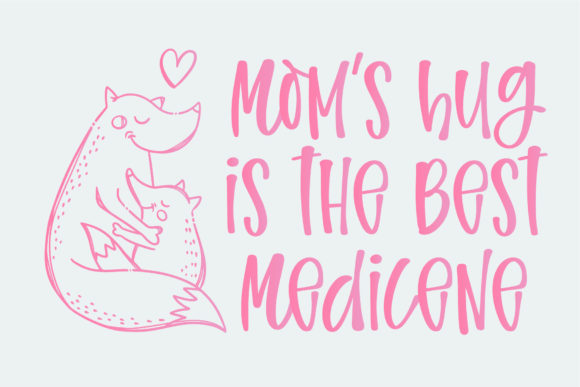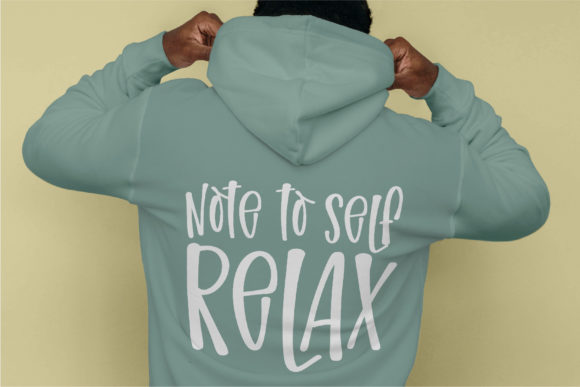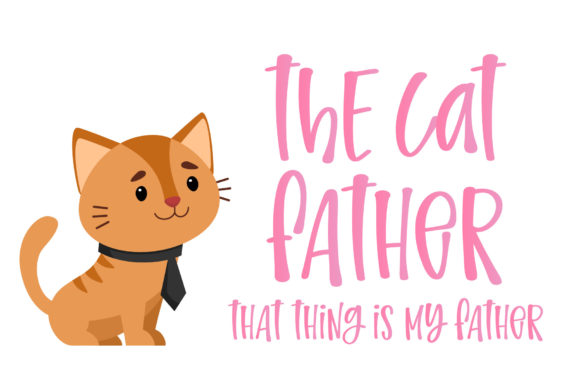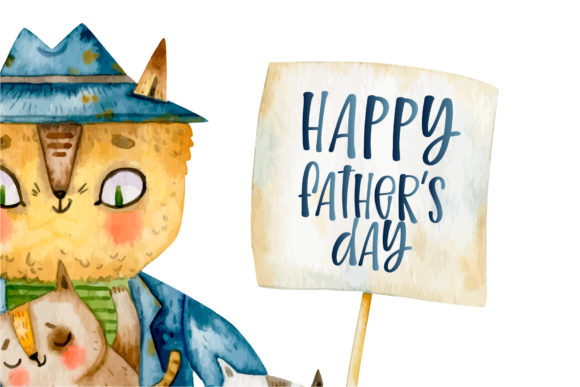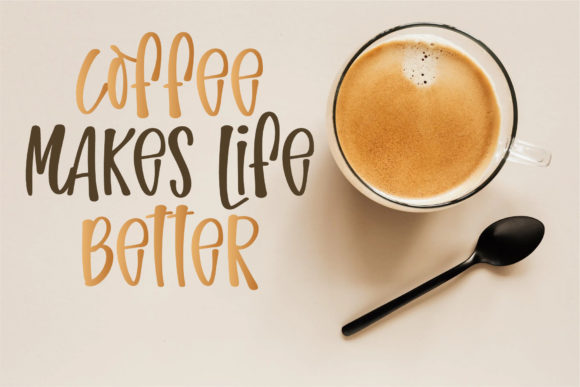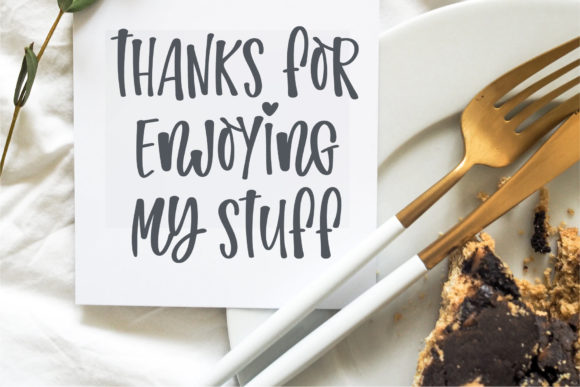
The Power of Gratitude Font: Elevate Your Designs with a Personal Touch
I’ll never forget the time I was working on a project for a client’s chalkboard quote. I had the perfect design concept, but something was missing – the right font. I scrolled through page after page of Google Fonts, but nothing seemed quite right. That was until I stumbled upon Gratitude Font. Its authentic, handwritten look and feel instantly added a personal touch to my design, and I knew I had found the perfect fit.
As a designer, I’m always on the lookout for fonts that can help me create unique and engaging designs. Gratitude Font has quickly become one of my go-tos, and here’s why:
- ✨ Authentic look and feel: Gratitude Font has a genuine, handwritten quality that adds a personal touch to any design.
- ✅ Versatility: This font is perfect for a wide range of projects, from chalkboard quotes to teaching materials, and even social media graphics.
- 💬 Easy to read: Despite its informal, handwritten style, Gratitude Font is surprisingly easy to read, even at smaller sizes.
Of course, no font is perfect, and Gratitude Font has a few quirks to be aware of:
- 🤔 Limited formal use: While Gratitude Font is amazing for informal designs, it may not be the best choice for more formal projects or professional documents.
- ⚠️ Occasional kerning issues: As with any font, there may be some kerning issues, especially with certain letter combinations.
The Story Behind Gratitude Font
Gratitude Font was designed with the intention of creating a friendly, informal font that could be used for a wide range of projects. The designer wanted to create a font that felt personal and realistic, perfect for chalkboard quotes and teaching materials. With its authentic look and feel, Gratitude Font has become a popular choice among designers and crafters.
| Font Name | Gratitude Font |
| Author | BitongType |
| What type of projects is Gratitude Font best suited for? | Gratitude Font is perfect for informal designs, such as chalkboard quotes, teaching materials, and social media graphics. |
| Is Gratitude Font easy to read? | Yes, despite its informal style, Gratitude Font is surprisingly easy to read, even at smaller sizes. |